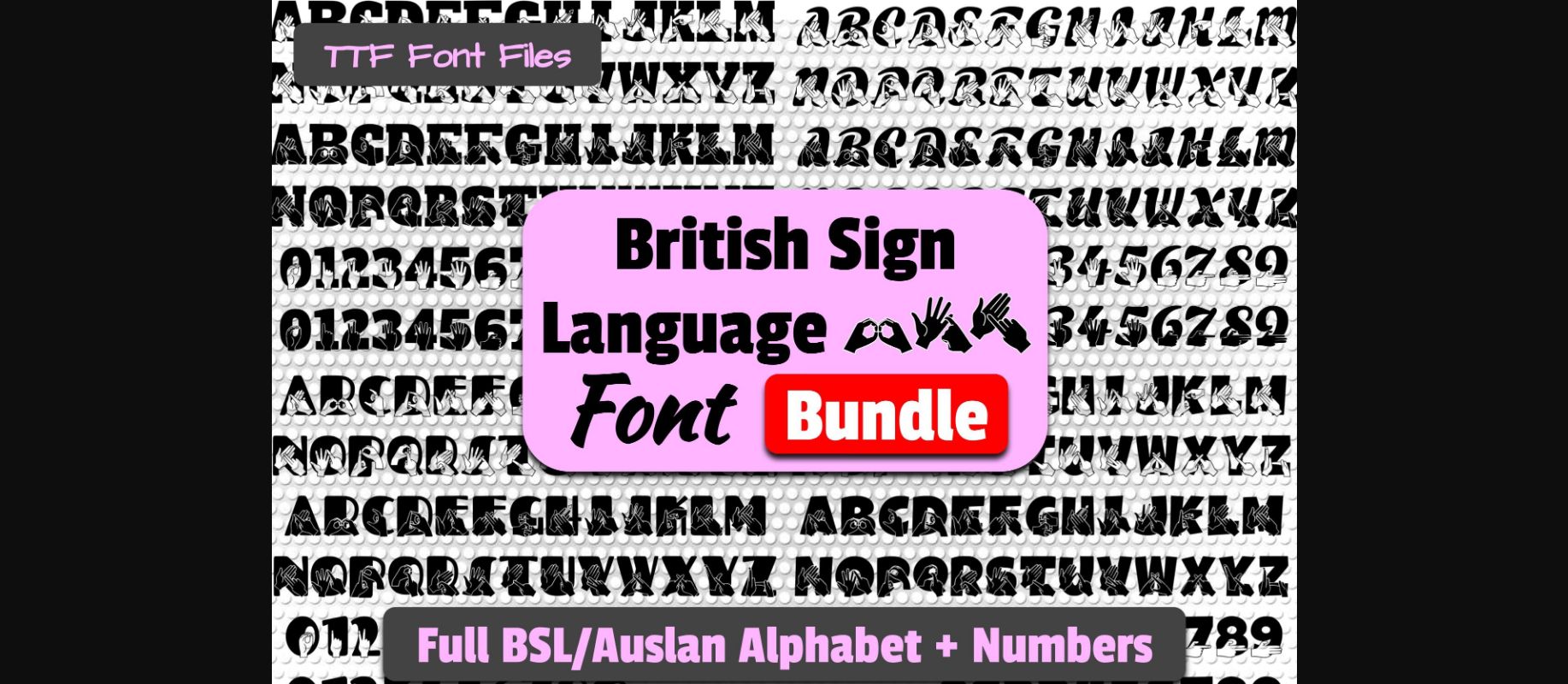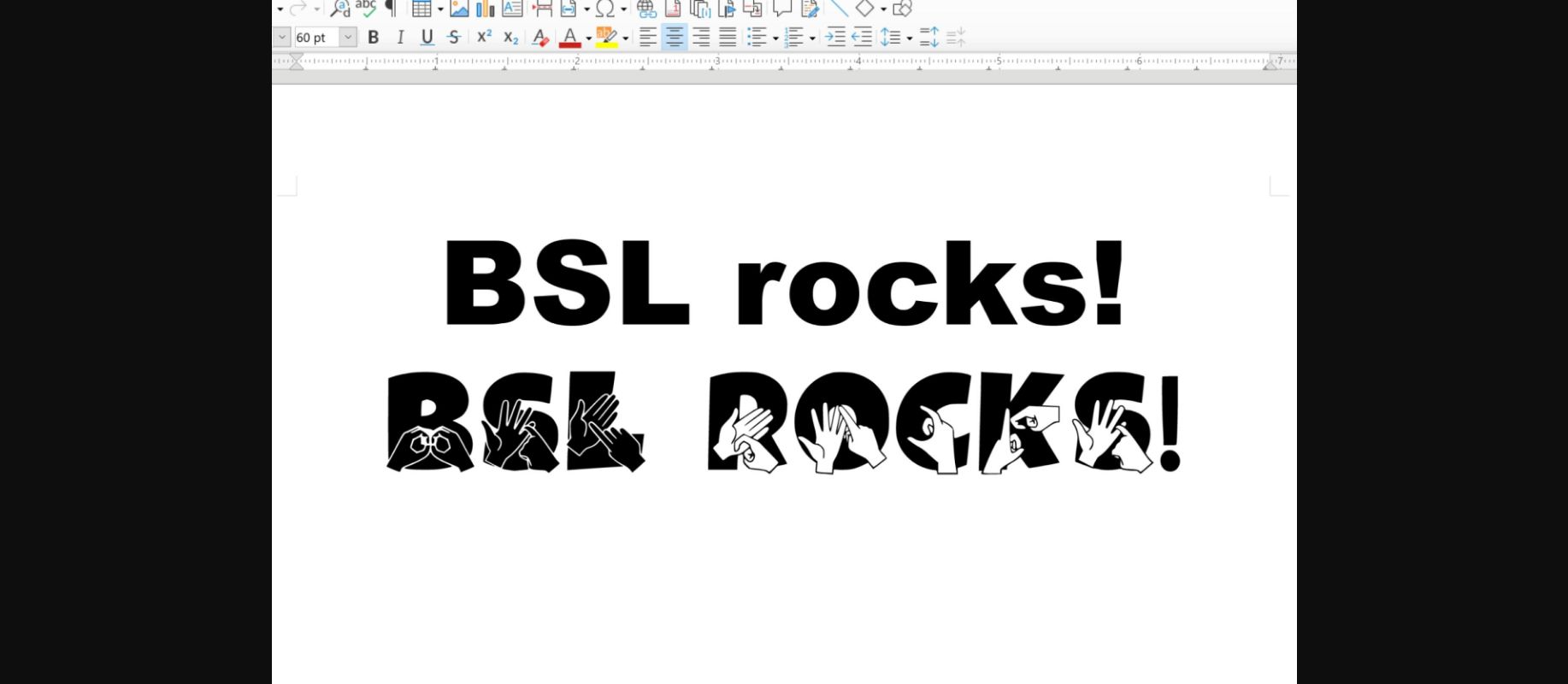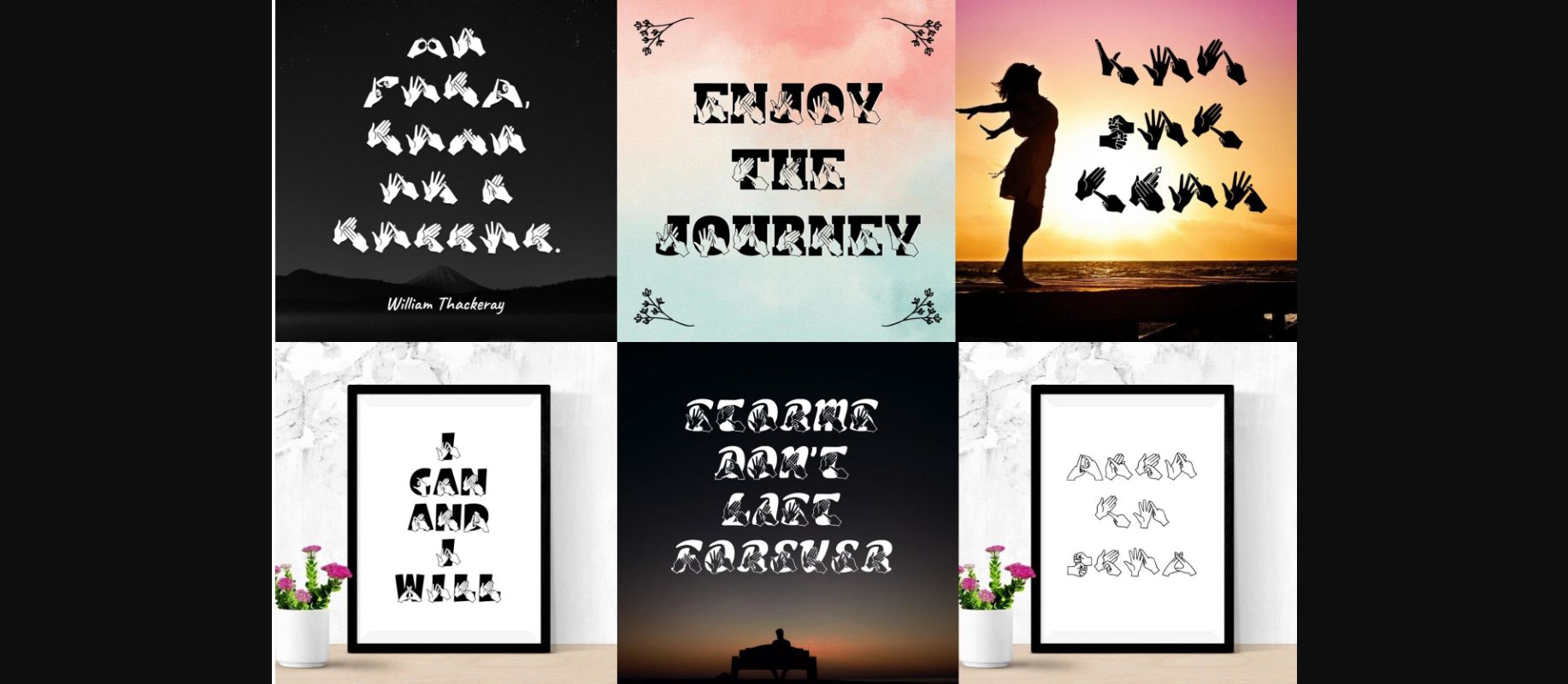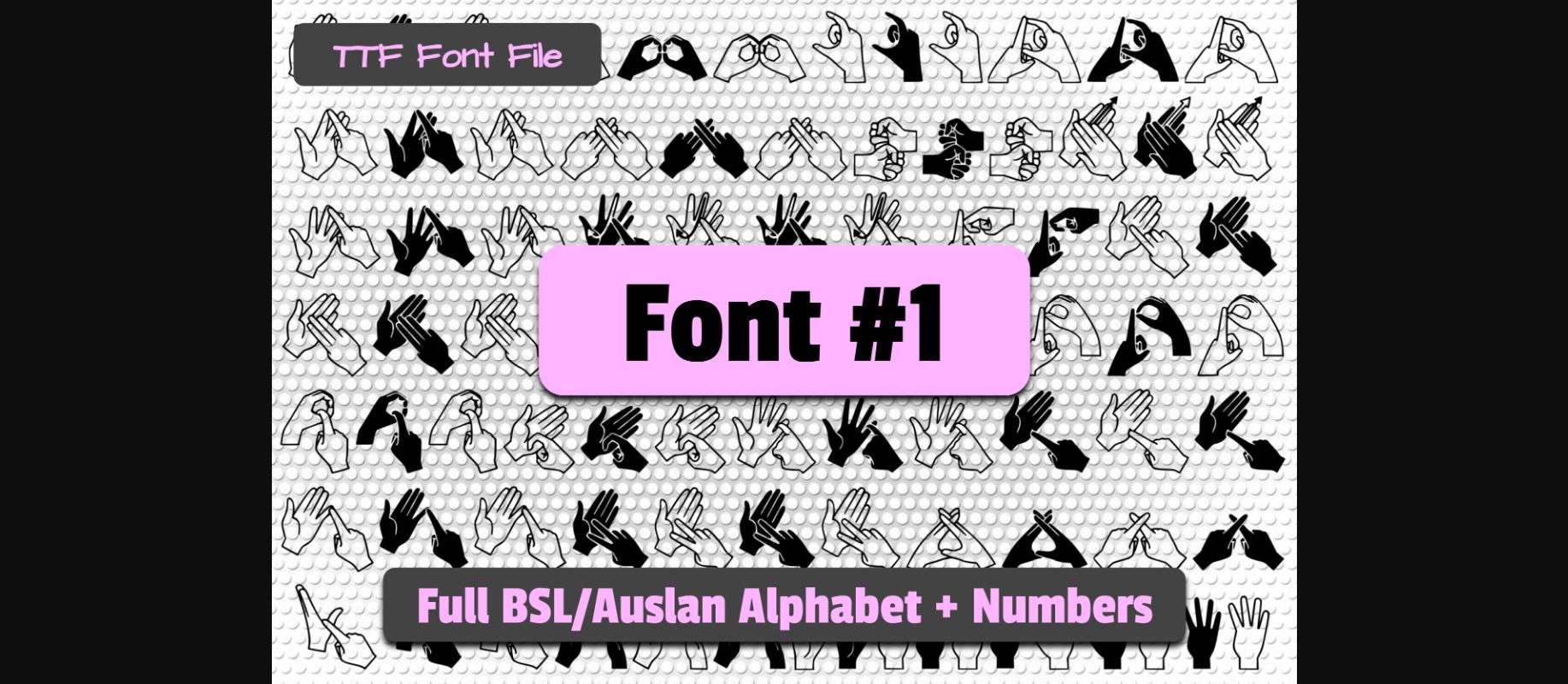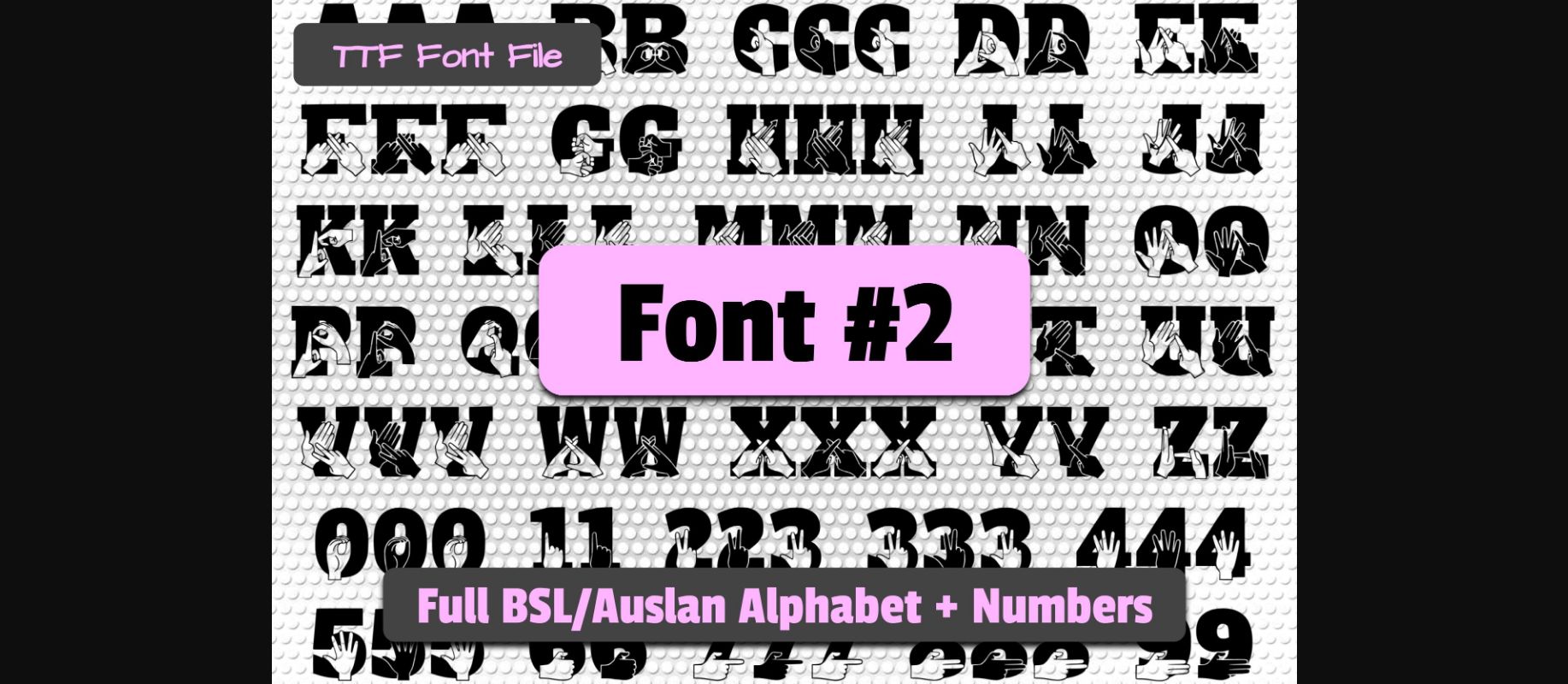
Able Lingo BSL 1-5 Font
About Able Lingo BSL 1-5 Font
Able Lingo BSL 1-5 is a decorative font bundle inspired by the British Sign Language. It is the perfect font choice for any creative project you can think of. Add it to your favorite designs, and notice how it makes them more interesting and appealing!